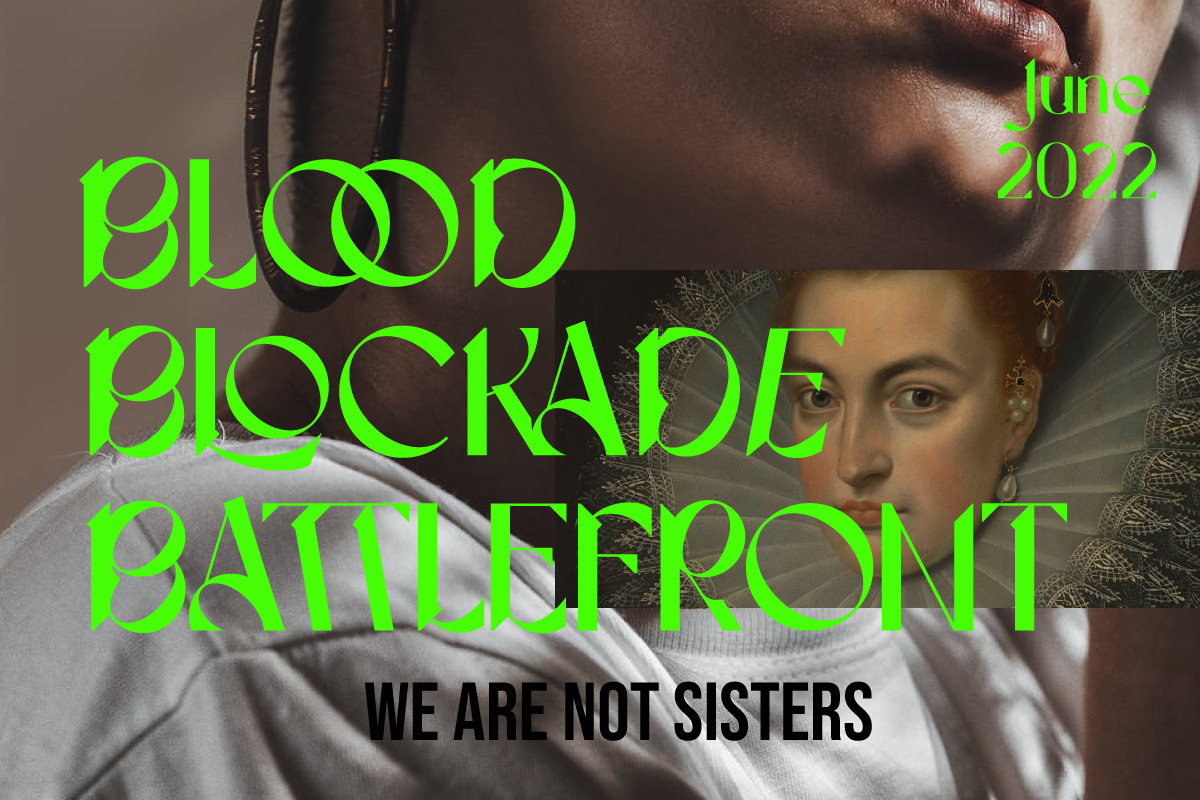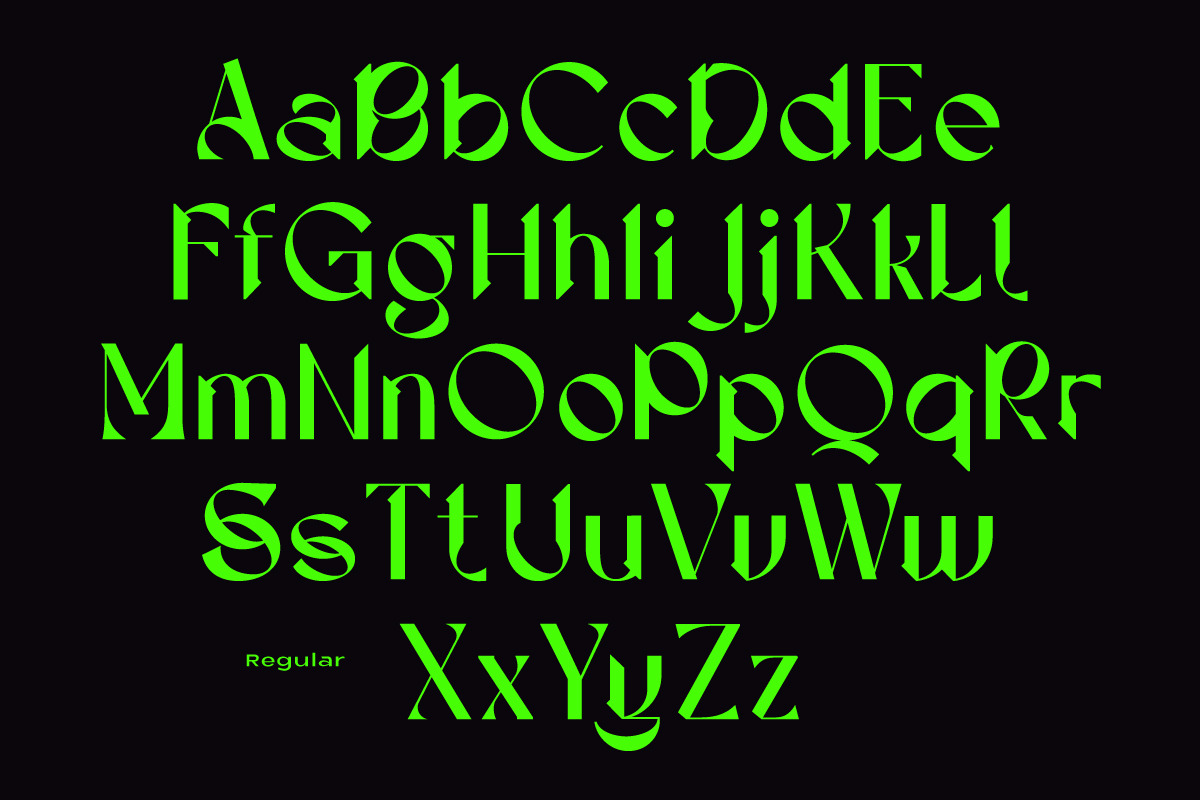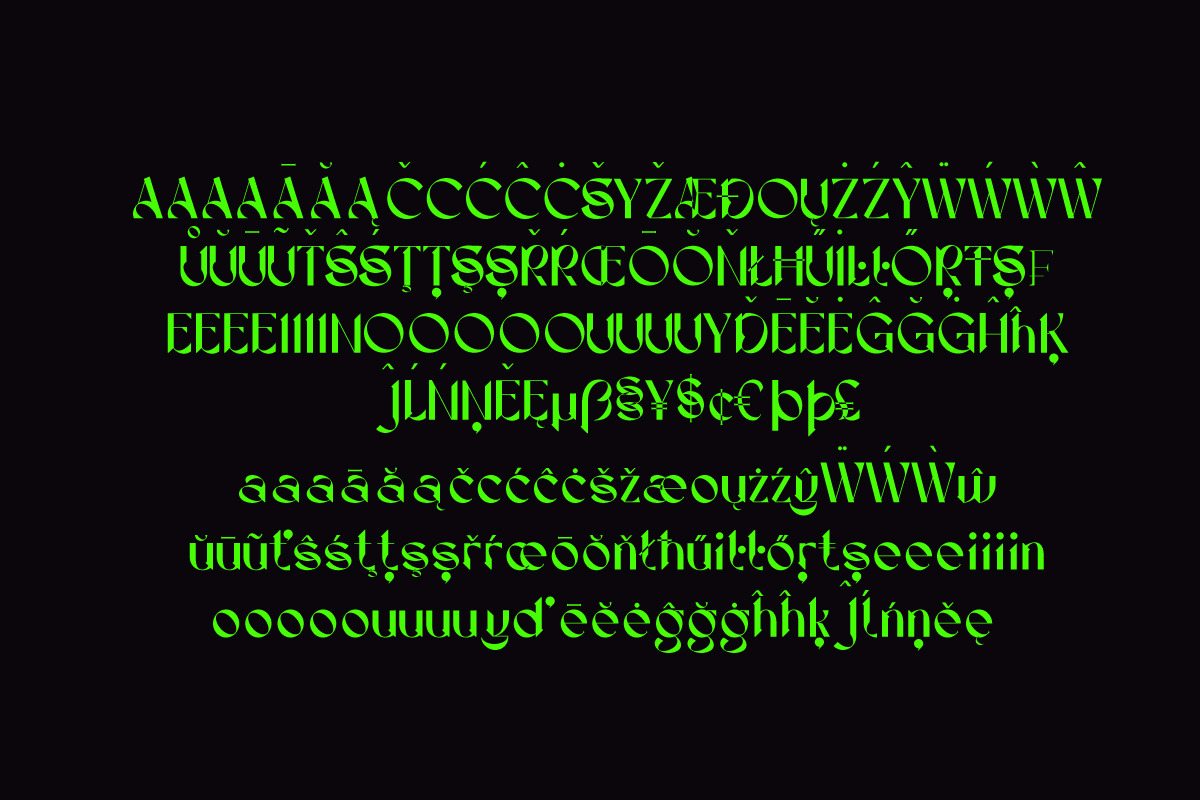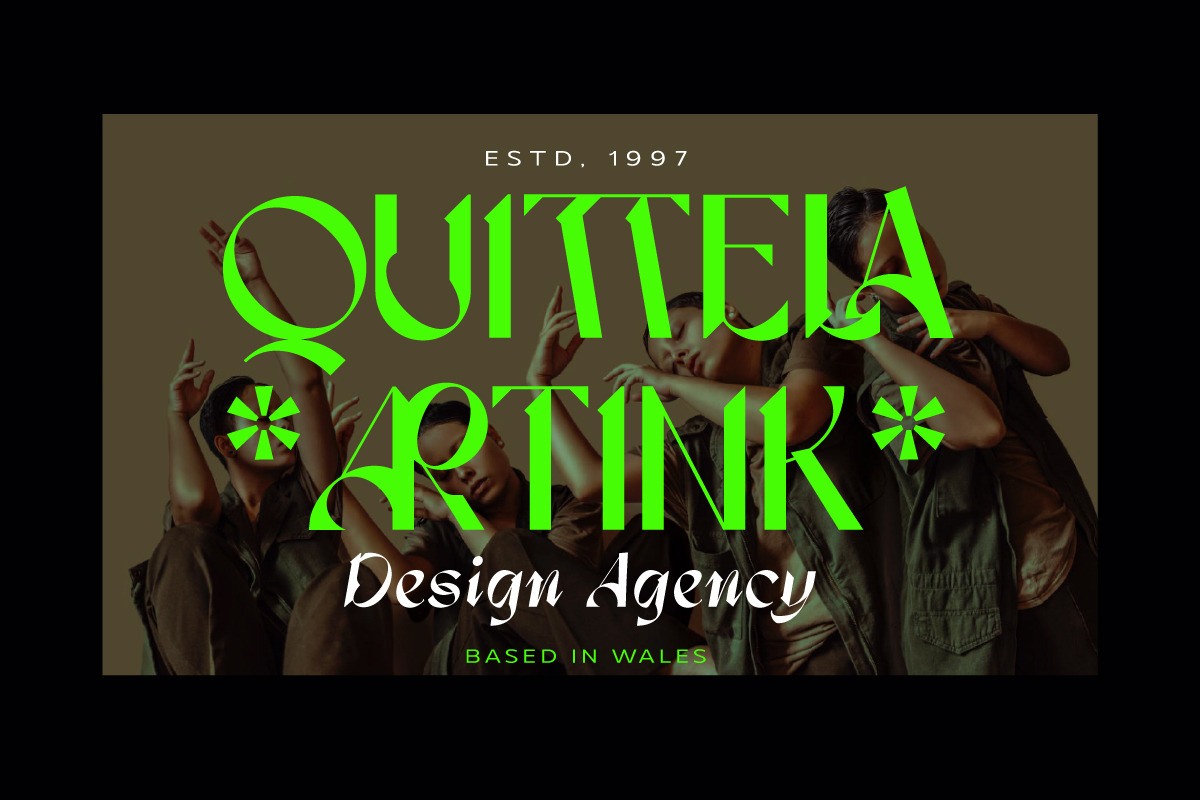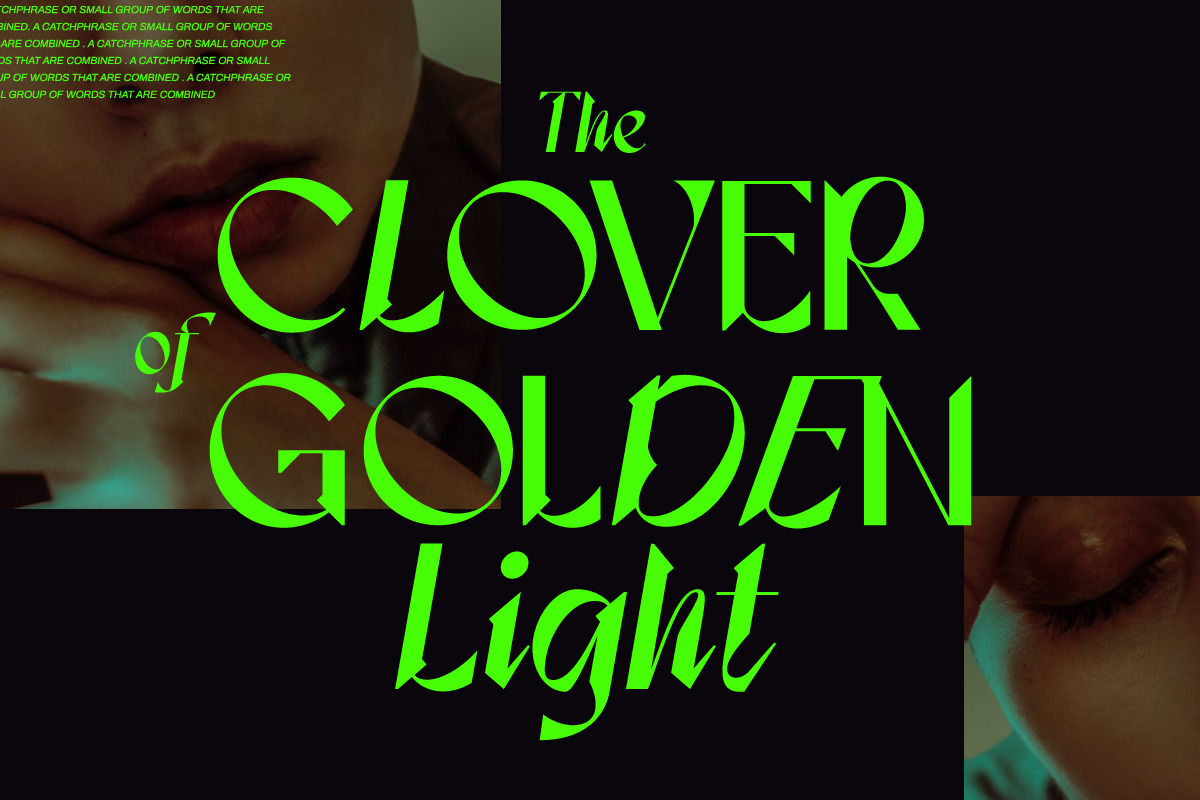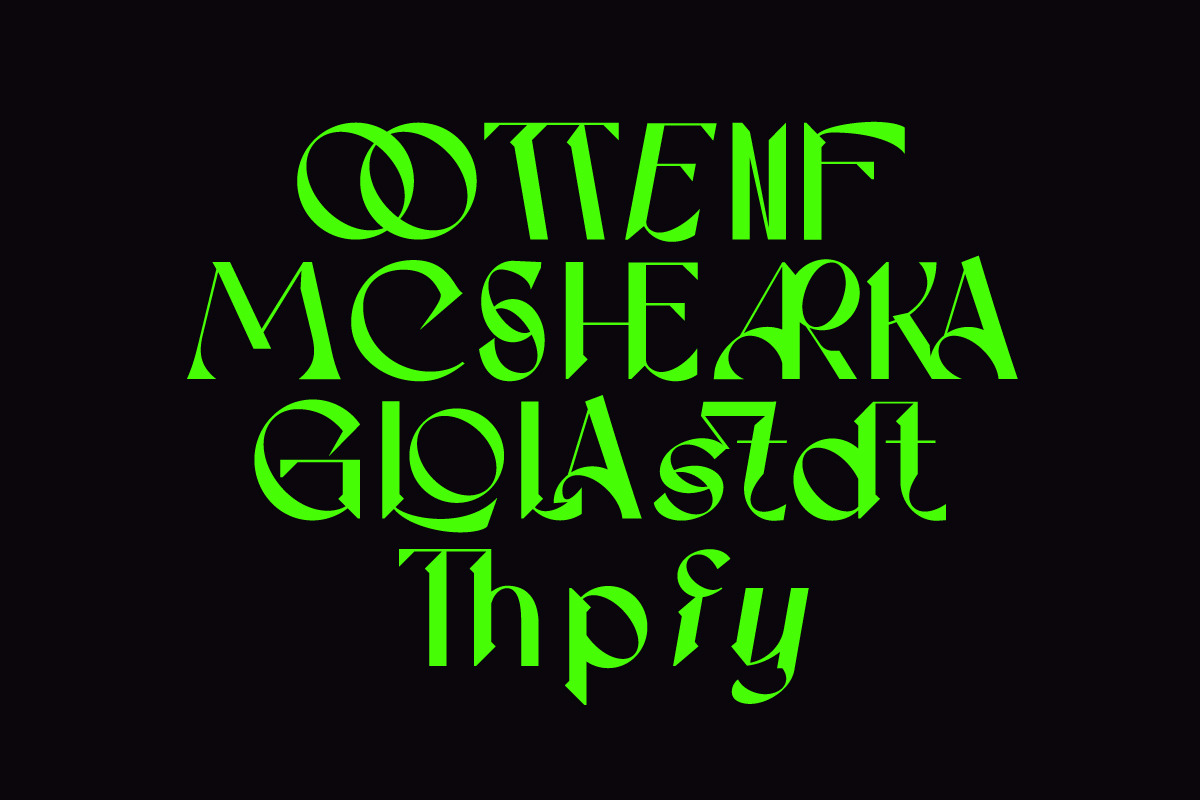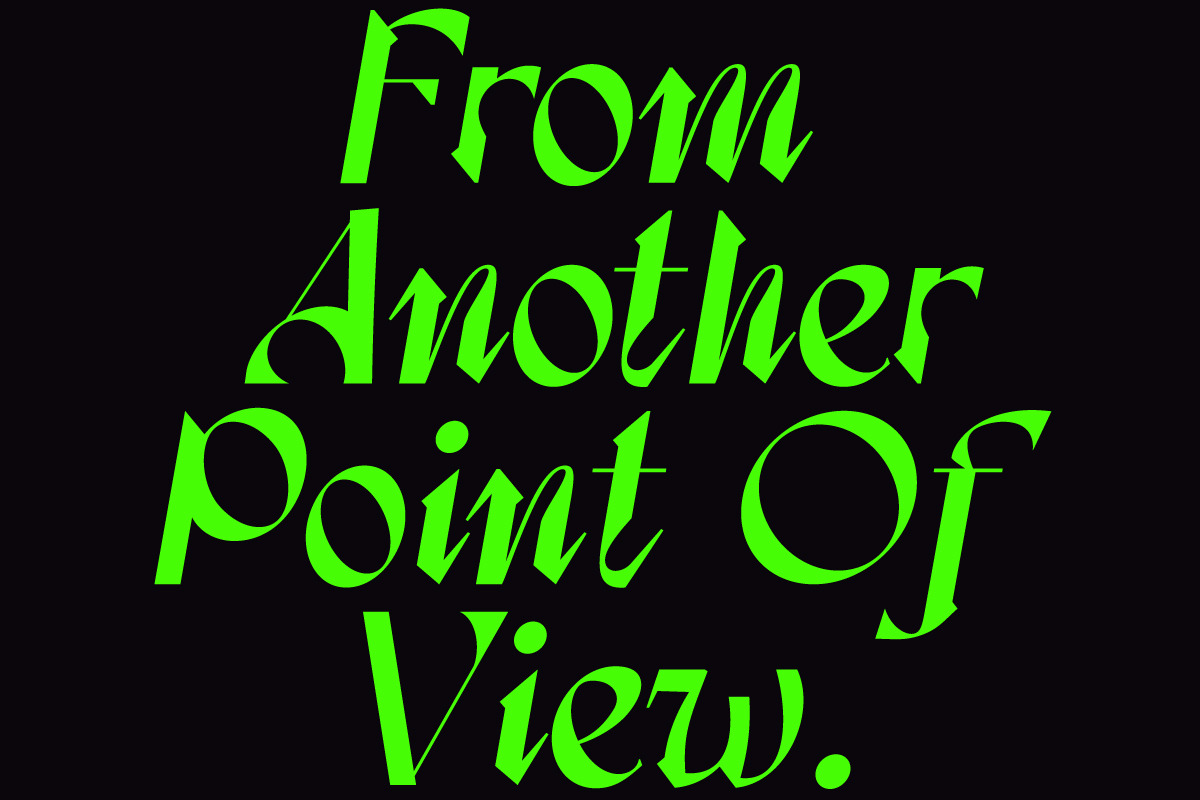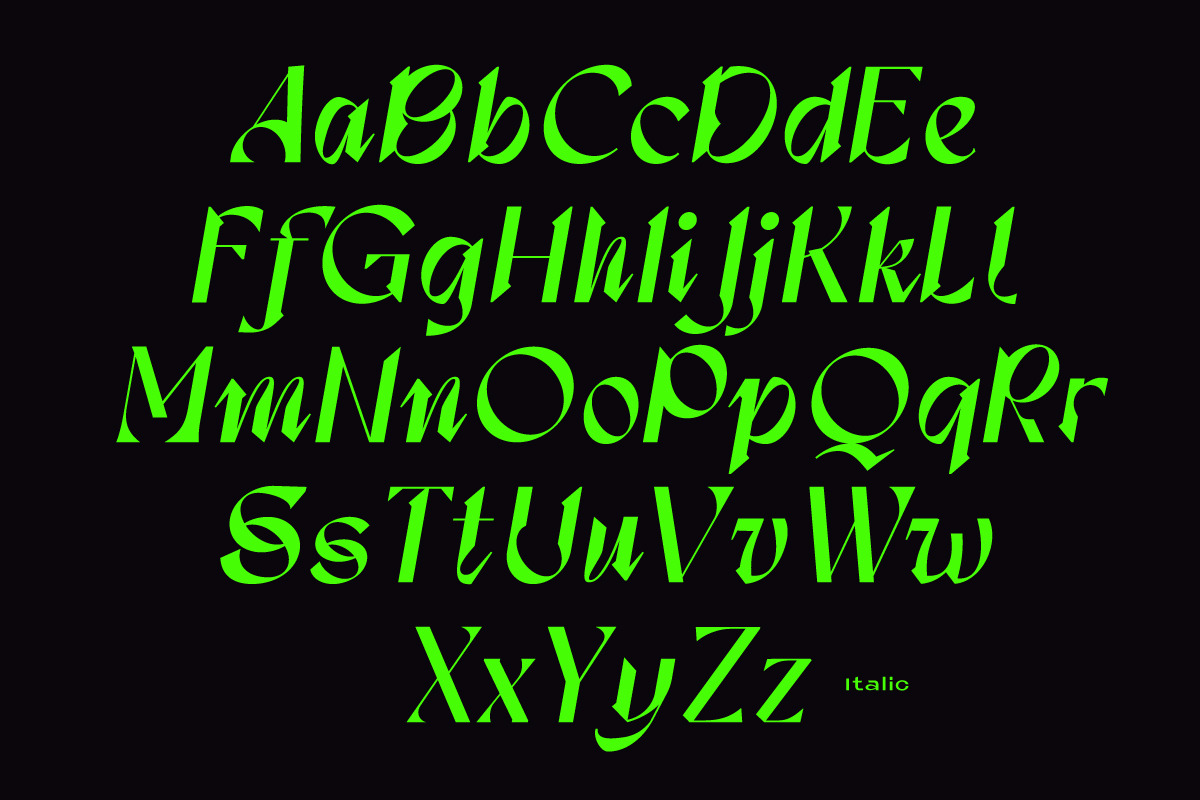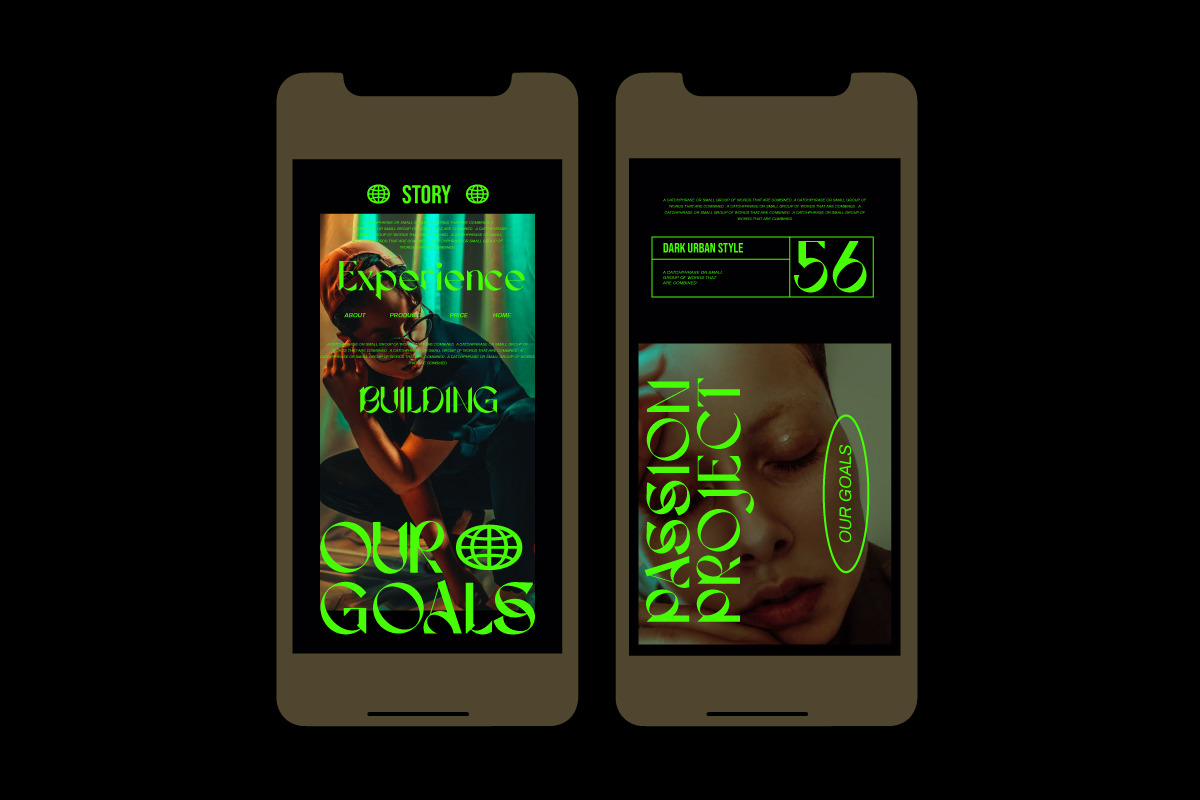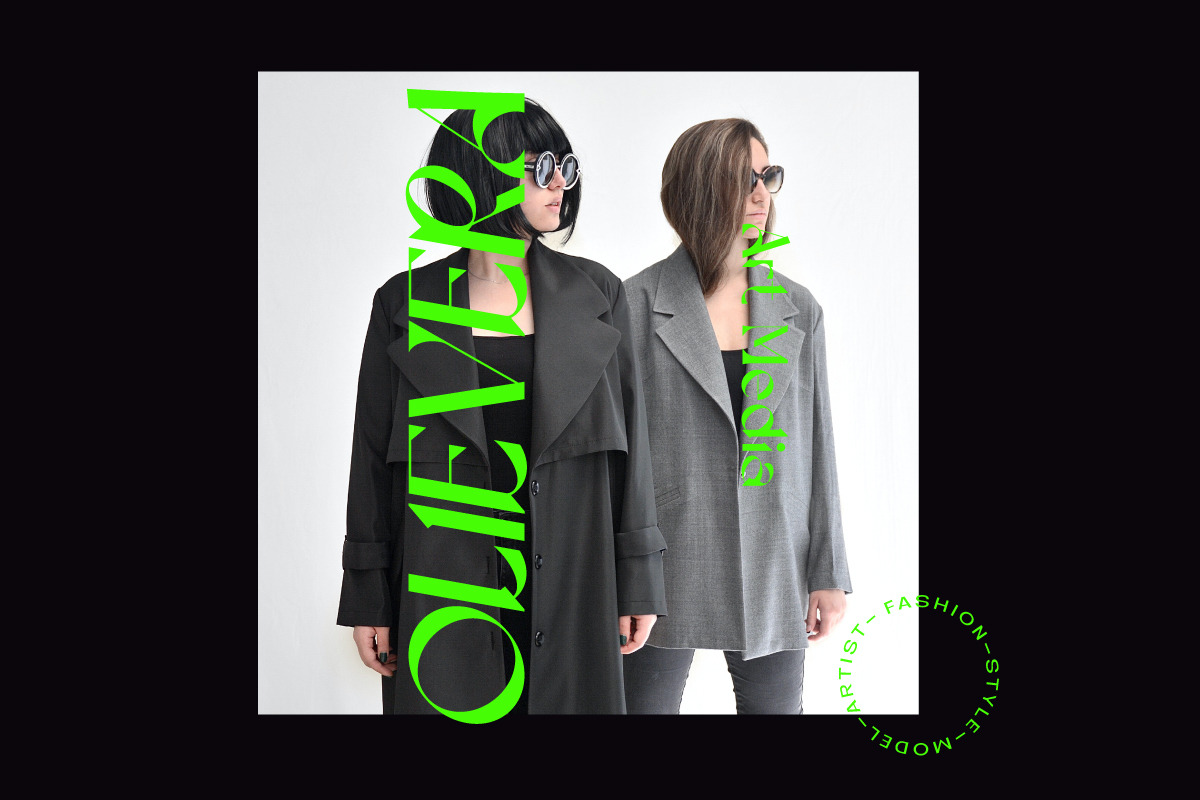
Dx Sitrus - Variable Display Font
Dx Sitrus a new fresh & modern serif with a contemporary touches with strong shape! So beautiful on invitation like greeting cards, branding materials, business cards, quotes, posters, and more!
Dx Sitrus Display Typeface is the part of a strong and modern display family. This typeface both impressive at display sizes and easily readable in text size, while the sharp shapes of the triangular serif and the distinctive letter shapes show their strength in logo design and impressive editorial use.